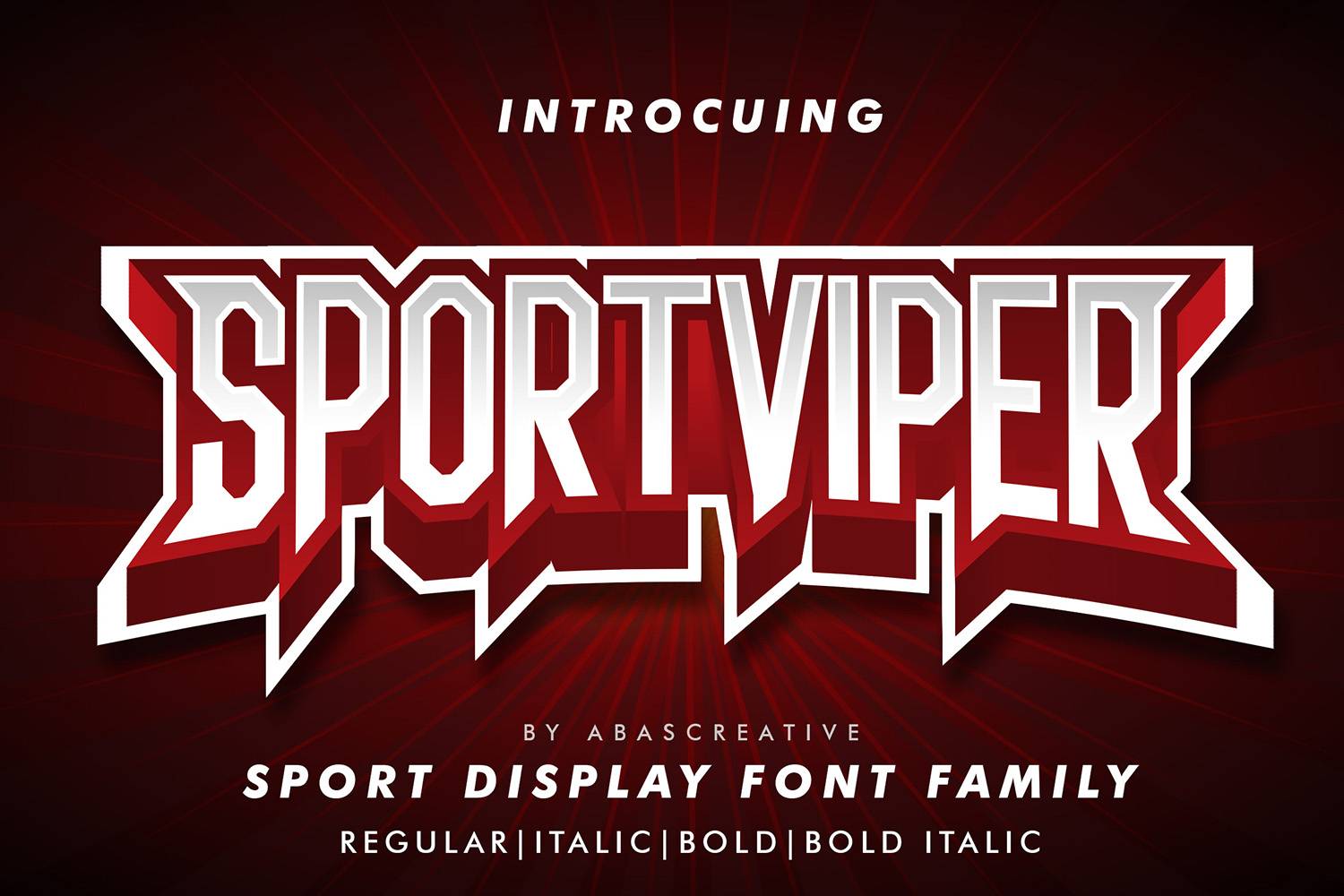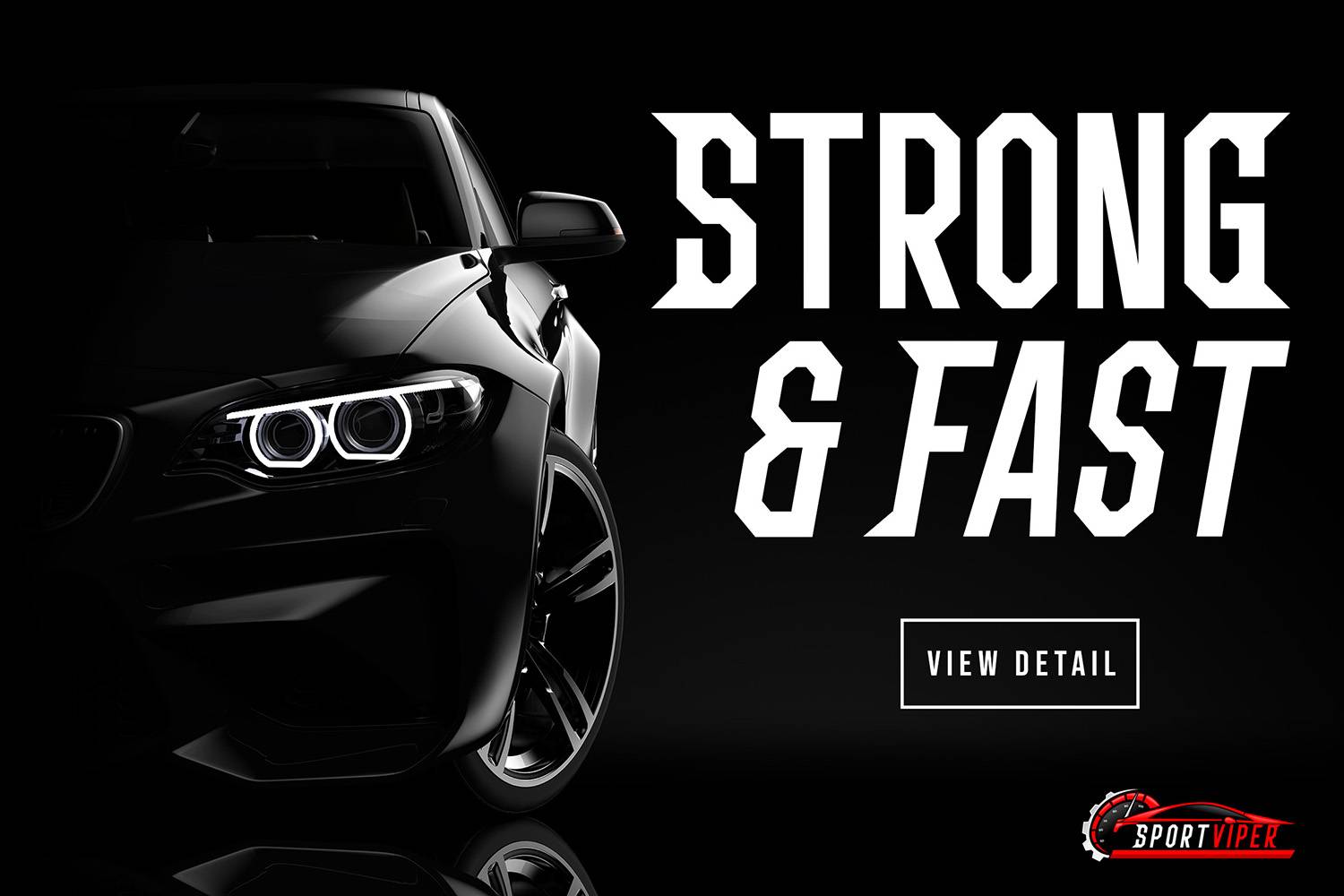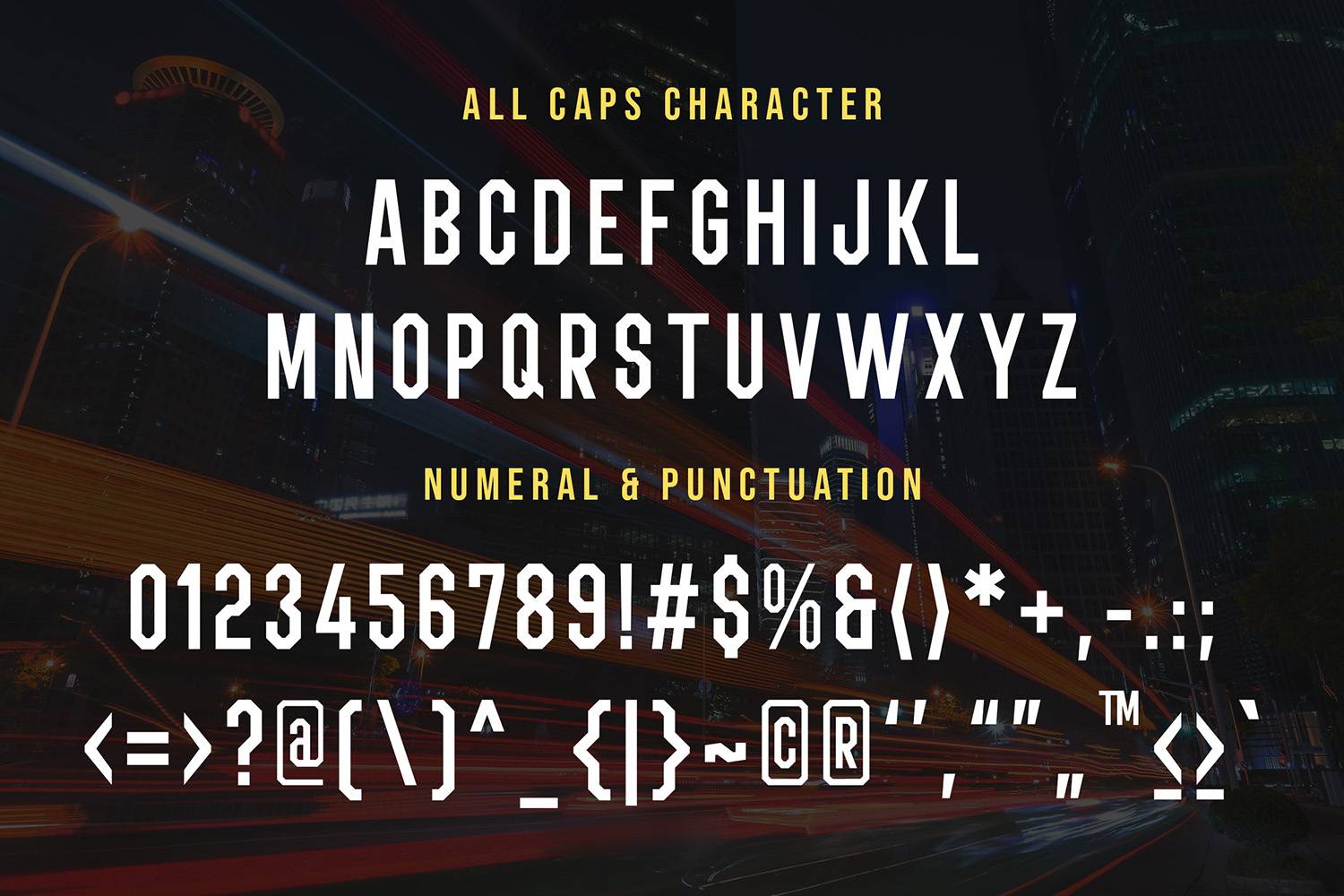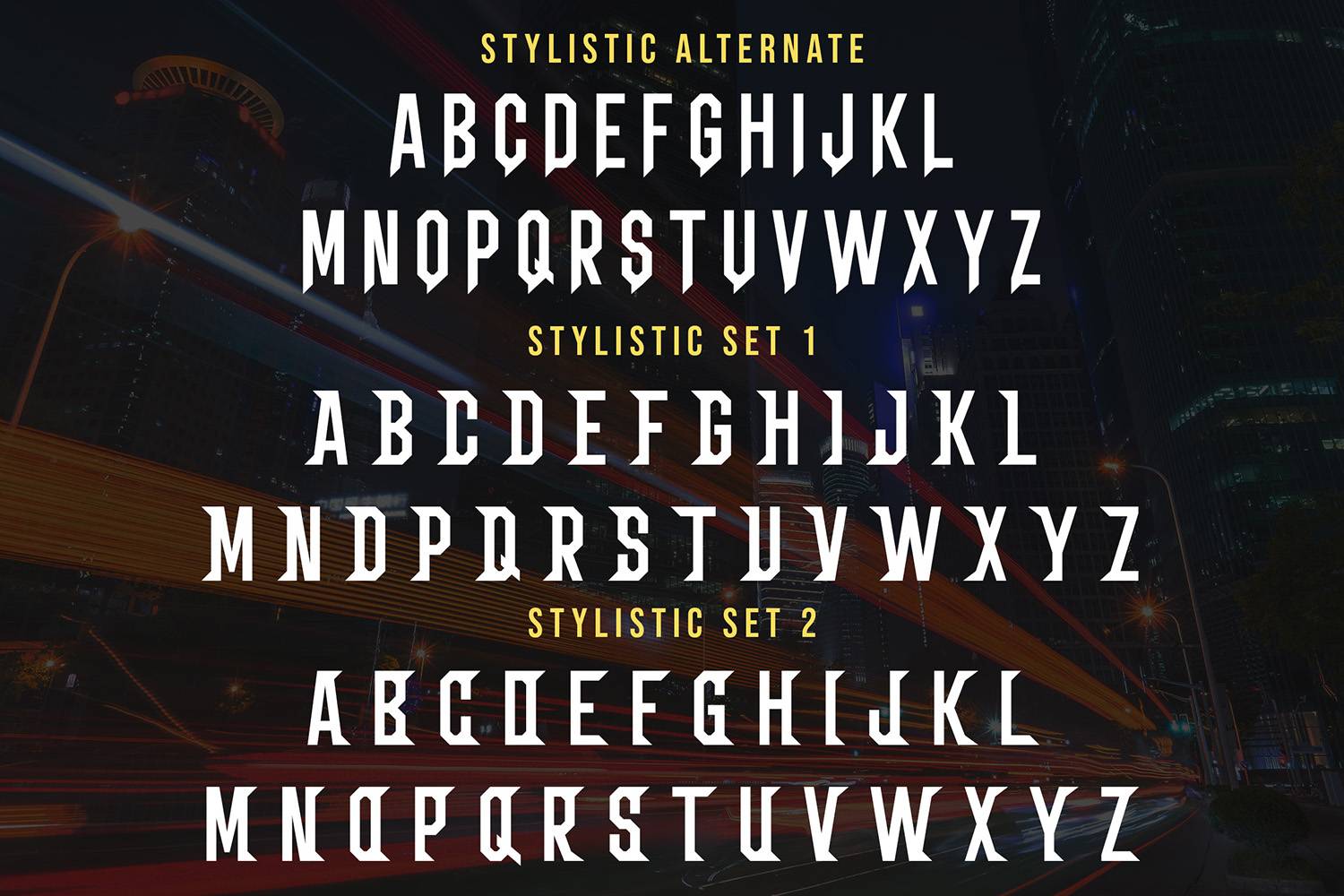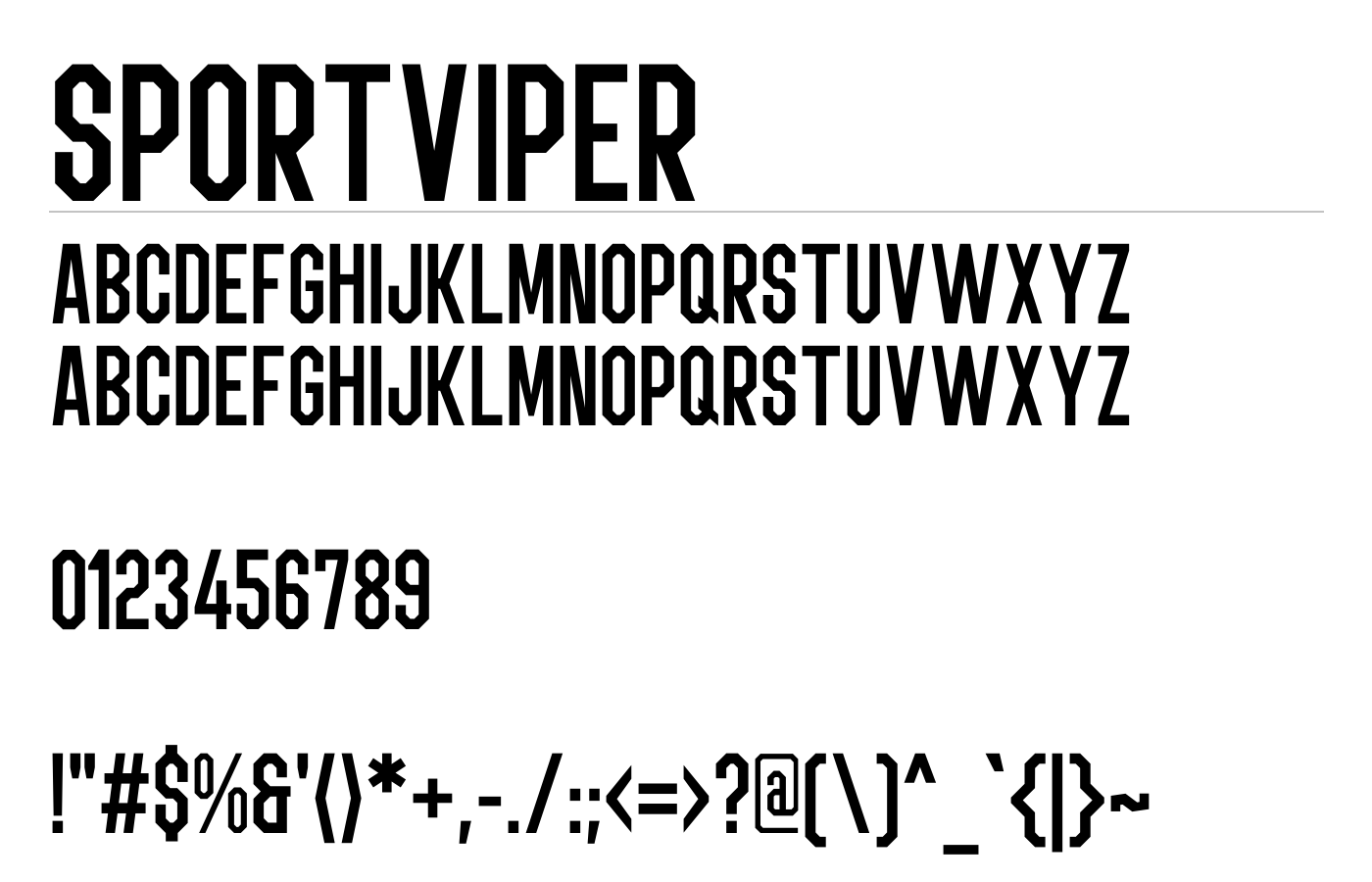
Sportviper is a bold, condensed sans-serif font with a strong, athletic vibe characterized by sharp, geometric edges and a modern, industrial feel. Its uppercase-only design with uniform stroke weight and distinctive angled cuts makes it perfect for sports branding, headlines, and any design that needs to convey energy and strength. This font works well in logos, posters, and packaging where a dynamic, impactful style is desired.
Sportviper Font
About Sportviper Font
| Font family | Sportviper Font |
| Release date | 2020-07-14 |
| Designer | Muhammad Farhan Sholeh Ramadhika |
| Trademark | Abas Creative |